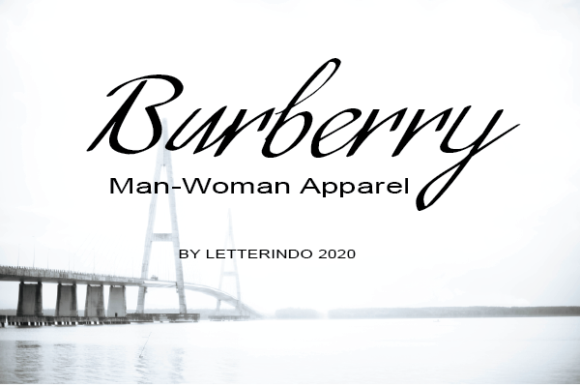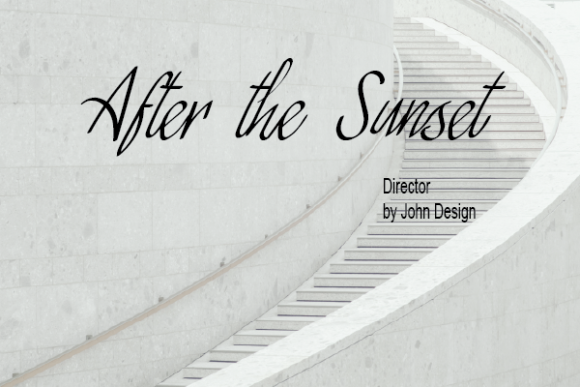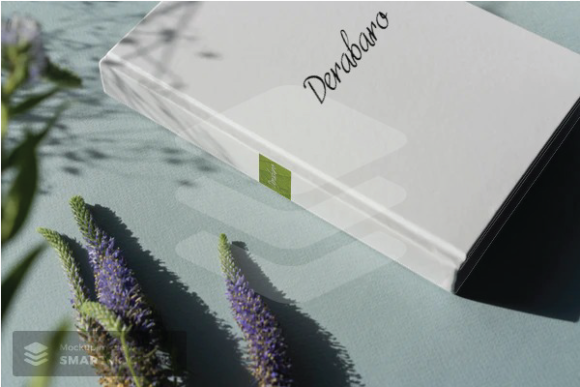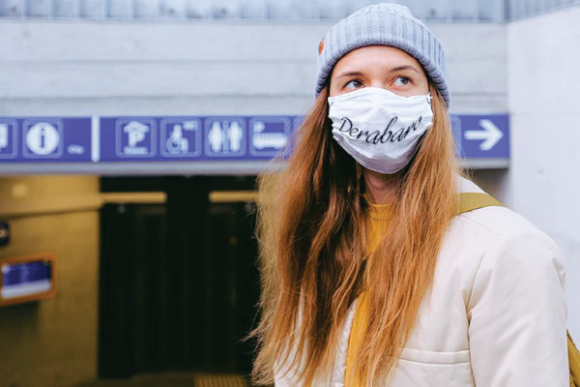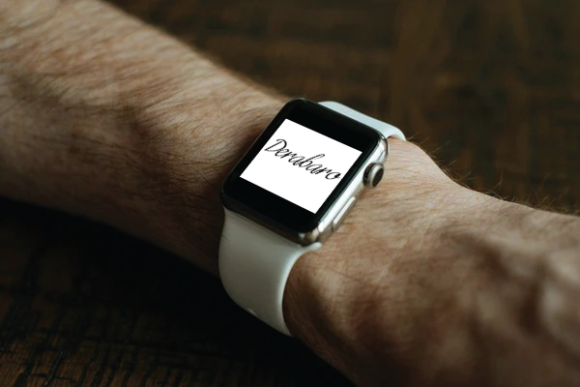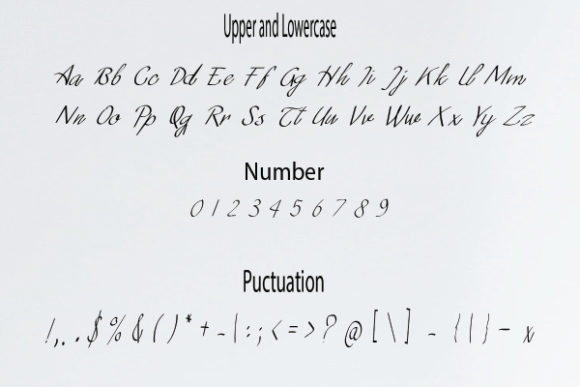
Derabaro Font
About Derabaro Font
Derabaro is a magical script font carefully created with a touch of elegance. It features an incredibly classic style, while still keeping a friendly feel. This font is the perfect font for making original and outstanding designs.